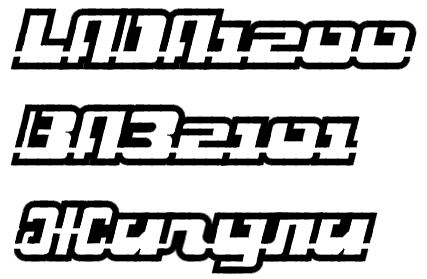
• I liked the original by Elmoyenique and was curious, whether I can somehow extrapolate the upper case (since its been in oven for years, not baked yet). It's there, but I am not happy with it yet.
Good font. This y2k nostalgic font is popular now. Don't you want to try Cyrillic? I also think it's worth changing K and doing more based on X
@Dmitriy Sychiov (Sychoff) Thank you for your words, but if we look at the downloads Nr., this particular font is not that popular (yet).  I would like to try later on, to expand in other alphabets, but got scared by the amount of glyphs. And about K and X, I am not satisfied by any of them yet, maybe I will borrow something from r :-)
Somehow I cant find systematic way to distinguish open and closed characters.